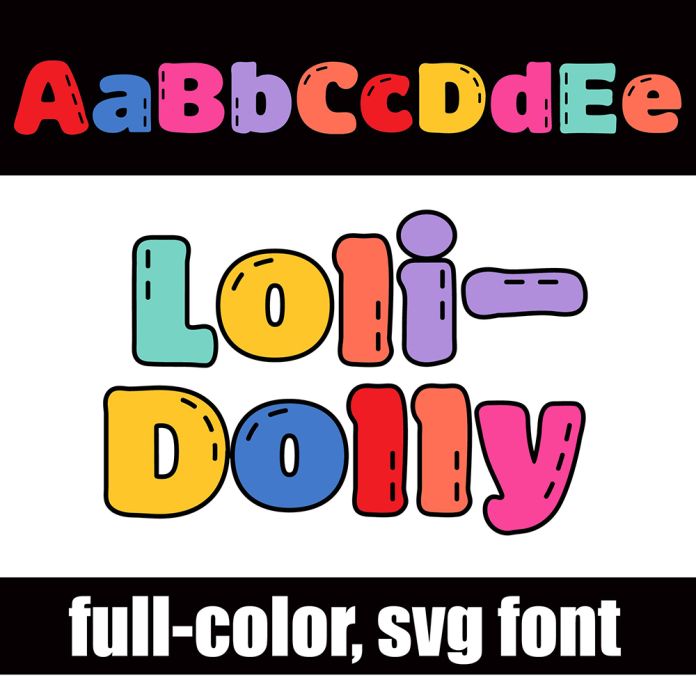
This full-color font features a rainbow color palette on a stitched, rounded font. There is an alt case with an additional color of each letter. This font works best for titles, displays, posters and more. Please note color fonts will show as black in non compatible programs. This font type is compatible with Silhouette Studio.